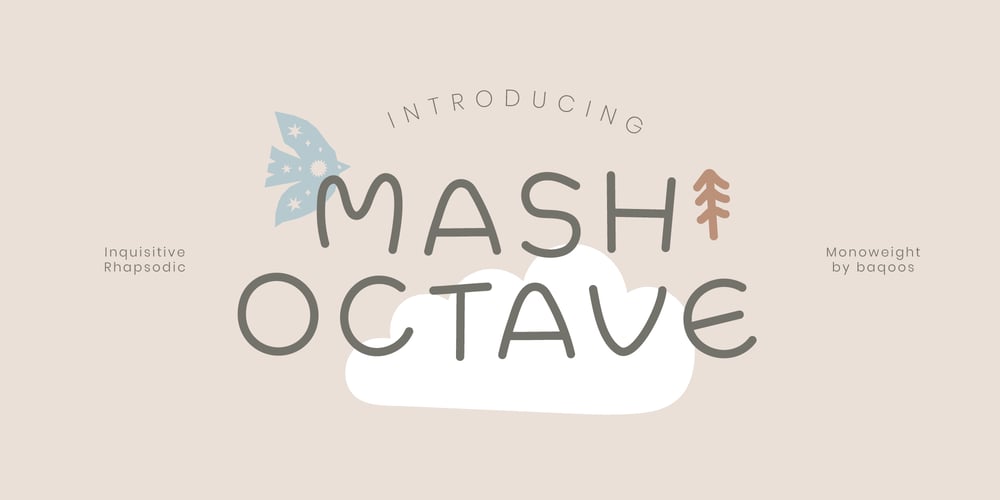
Mash Octave
Mash Octave font
Mash Octave Font Family was designed by Andrew Seah and published by Baqoos. Mash Octave contains 1 styles and family package options. Eva Poshy is an inquisitive rhapsodic handwritten typeface apt for headline, editorial, branding, packaging, printed materials and typographic applications. 220+ glyphs including punctuation and numerical.